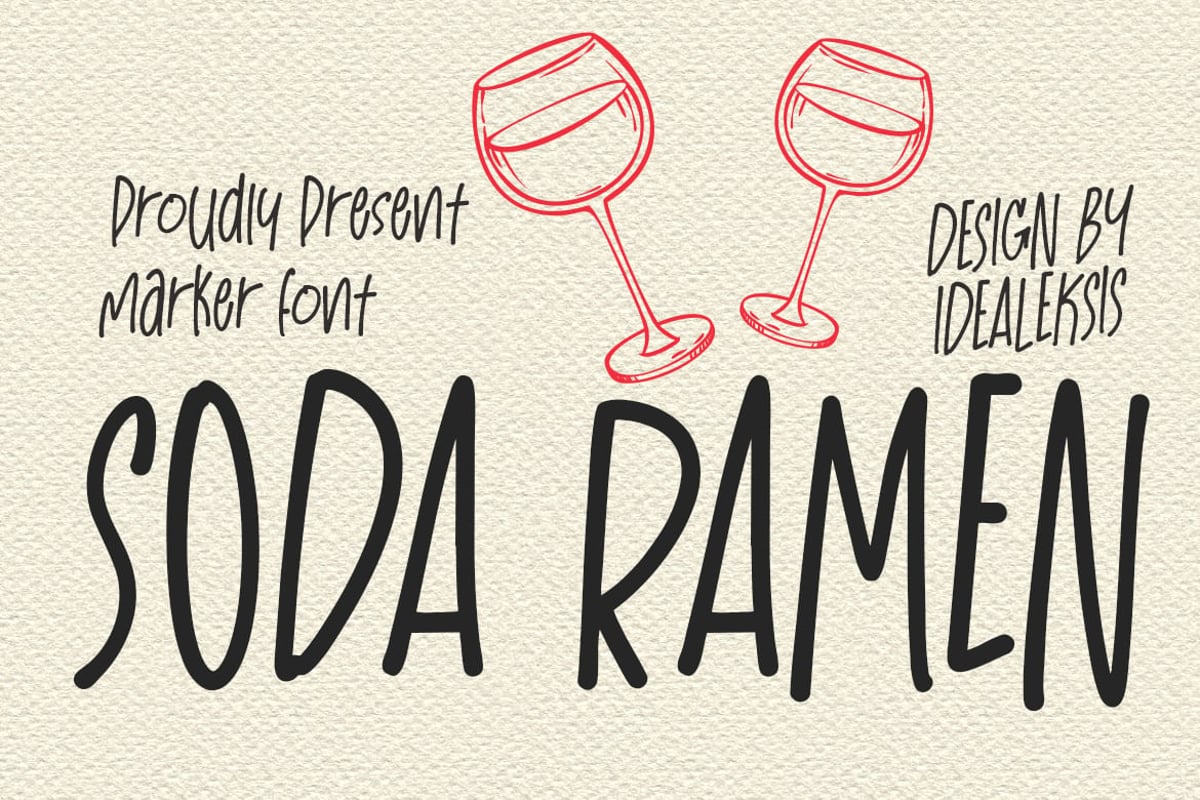
Soda Ramen - Food Font
Create memorable food branding with this hand-drawn marker font featuring tall, narrow letterforms and friendly appeal. This distinctive typeface showcases consistent medium-weight strokes with soft, rounded terminals that deliver an approachable and organic feel. The slightly irregular baseline and natural curves capture the spontaneous essence of felt-tip pen lettering, making it perfect for projects that need a personal, handcrafted touch. The vertical emphasis and condensed width design allo...